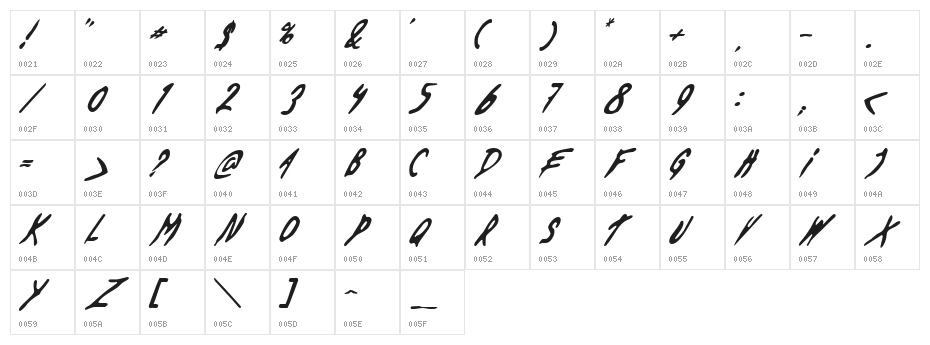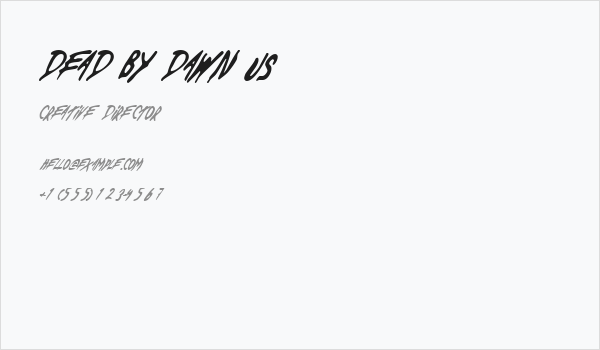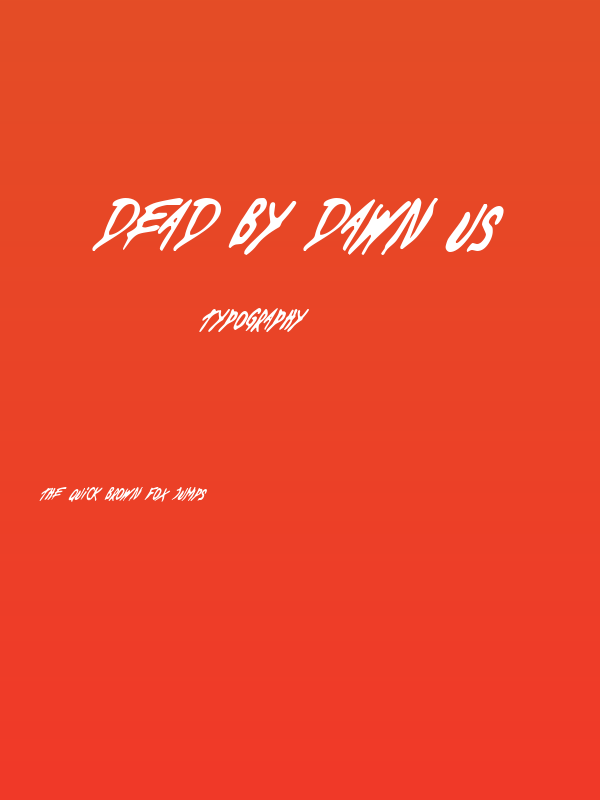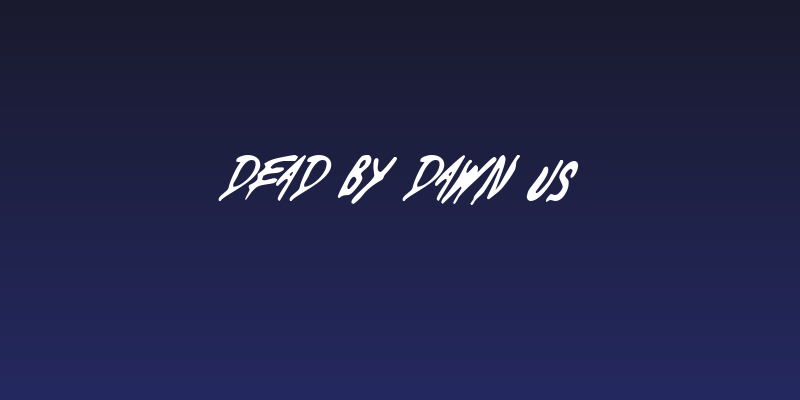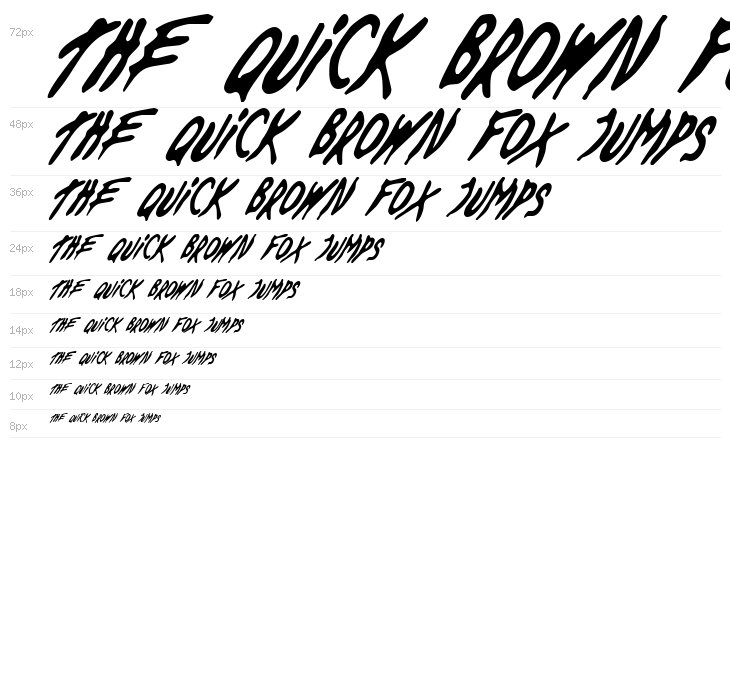
Dead By Dawn US Font
Dead By Dawn US Description
This font exudes a bold and edgy style, characterized by its sharp, jagged edges and dynamic, slanted forms. The letters are highly stylized, with exaggerated strokes that convey a sense of urgency and intensity. The uppercase and lowercase letters maintain a consistent aesthetic, while the numbers and special characters complement the overall design with their dramatic flair. The font's aggressive appearance makes it ideal for projects that require a strong visual impact, such as horror-themed designs or rebellious branding. Its unique style captures attention and evokes a sense of mystery and excitement.
| Overall Style | Modern, Edgy |
| Proposed Projects | Ideal for horror-themed designs, rebellious branding, and projects needing a strong visual impact. |